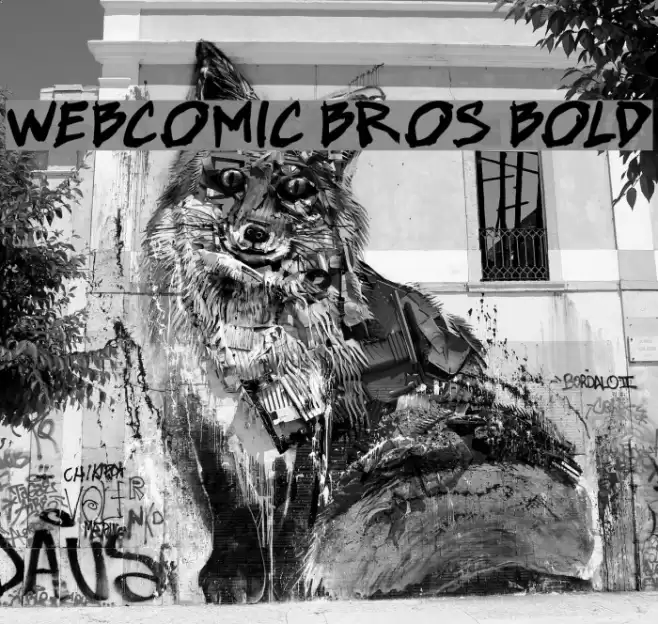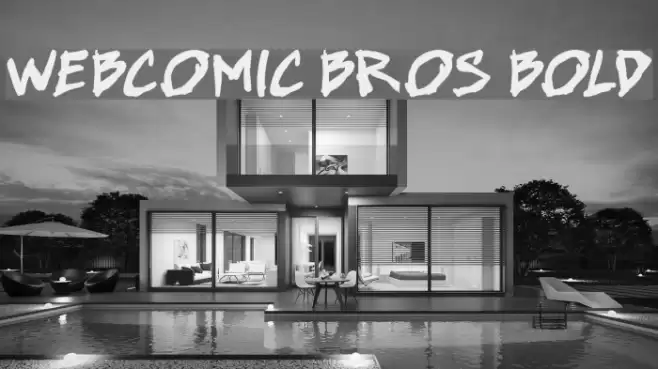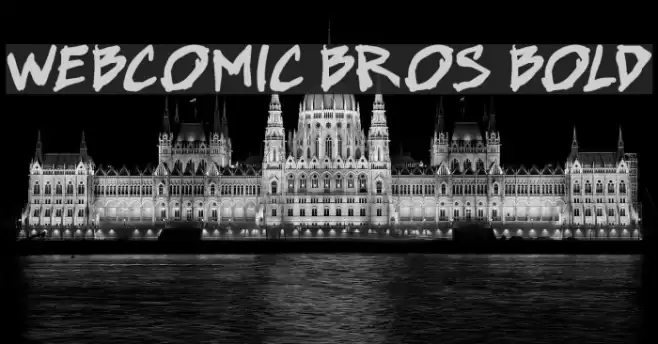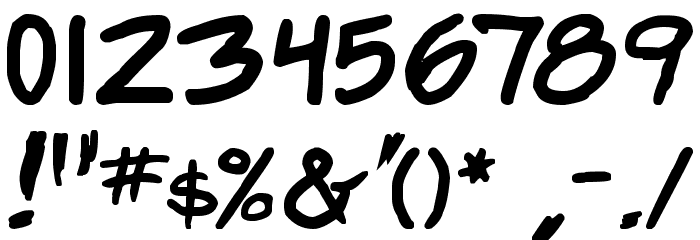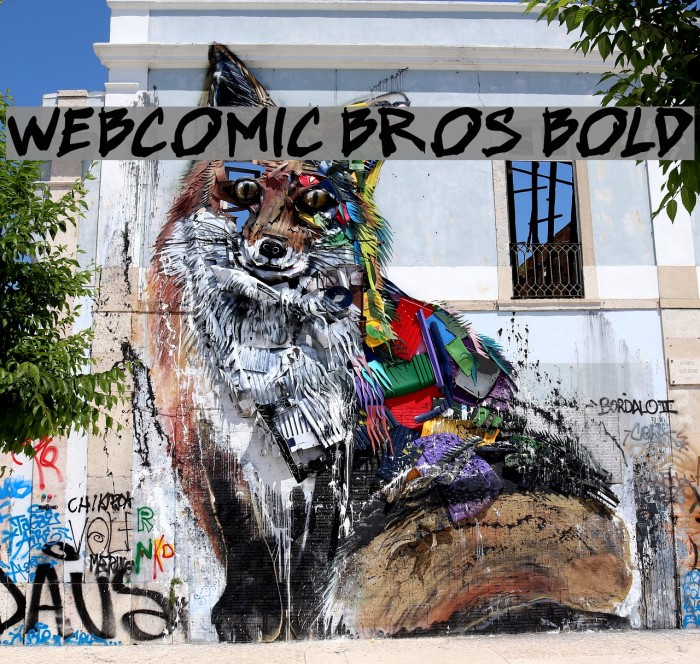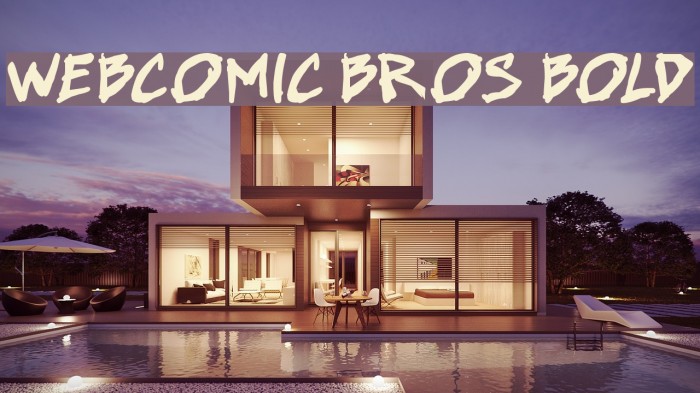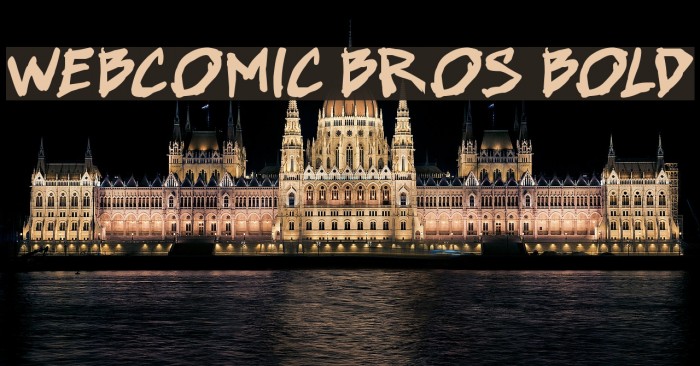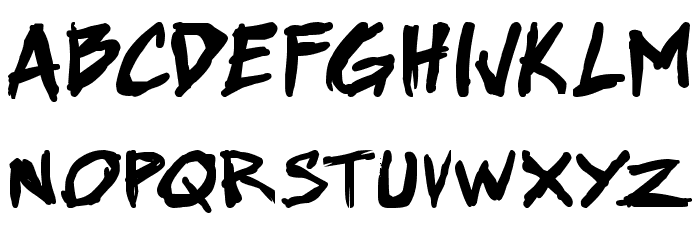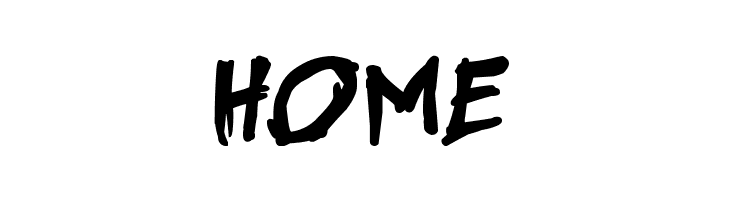
Webcomic Bros Bold Font
Webcomic Bros Bold Description
This font features a bold, energetic style with a hand-drawn appearance, reminiscent of comic book lettering. The characters are slightly irregular, adding a playful and dynamic feel. The strokes are thick and varied, giving a sense of movement and personality. The uppercase and lowercase letters maintain a consistent style, with rounded edges and a slight slant, enhancing the informal and approachable look. The numerals and special characters follow the same design principles, ensuring uniformity across all glyphs.
A bold, hand-drawn font with a comic book style and dynamic character from Comic fonts.
- Proposed Projects: Ideal for comic books, graphic novels, playful branding, children's books, and creative posters.